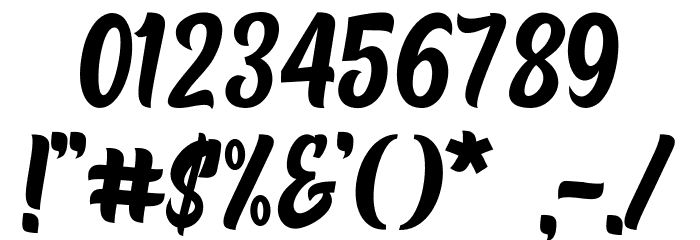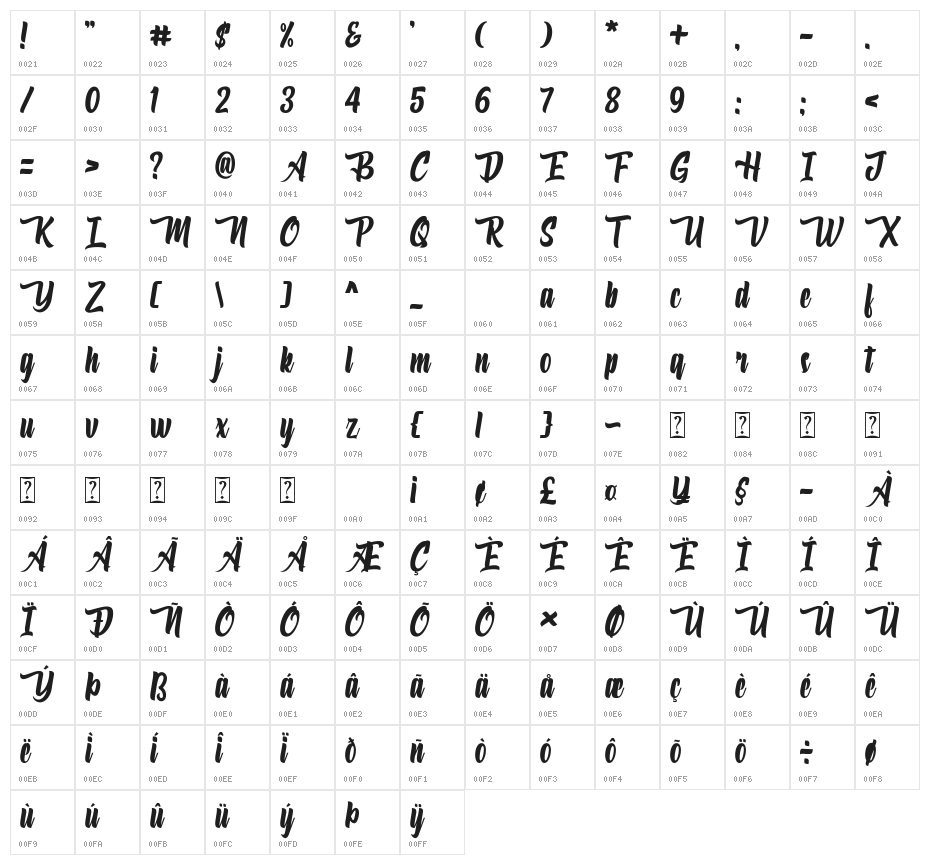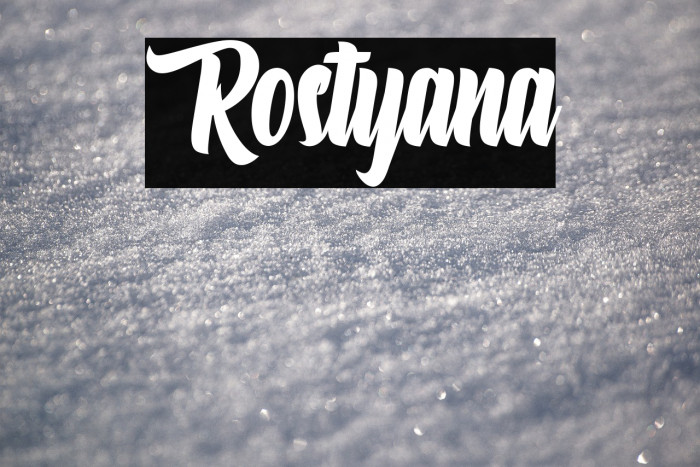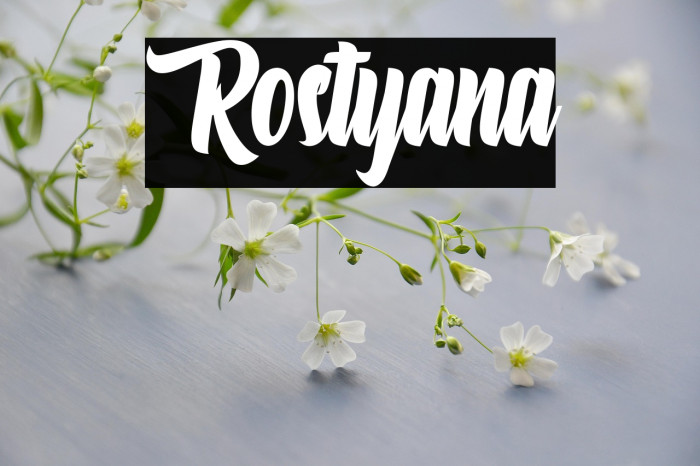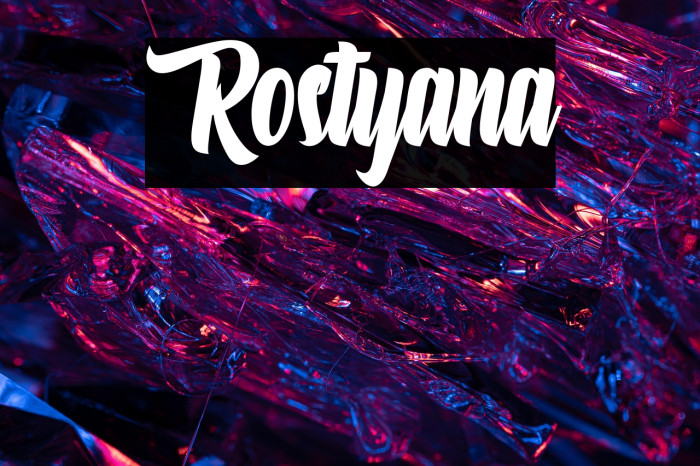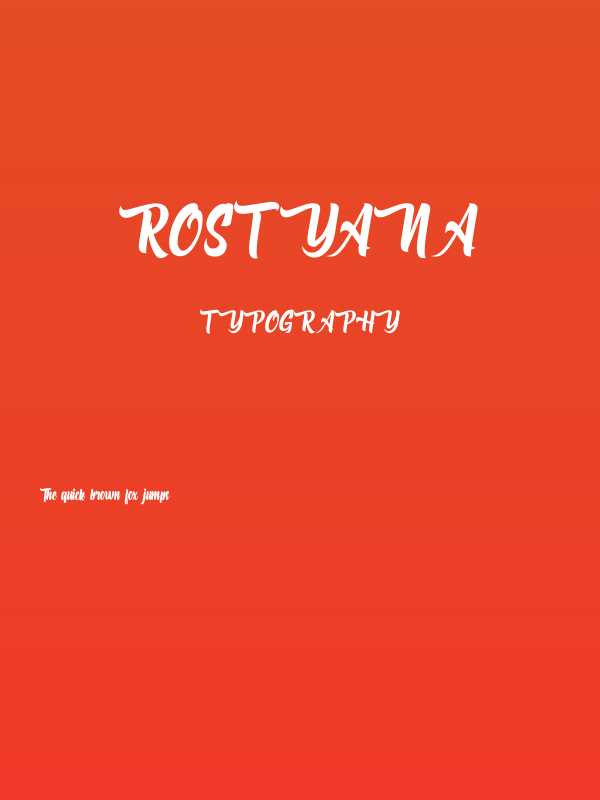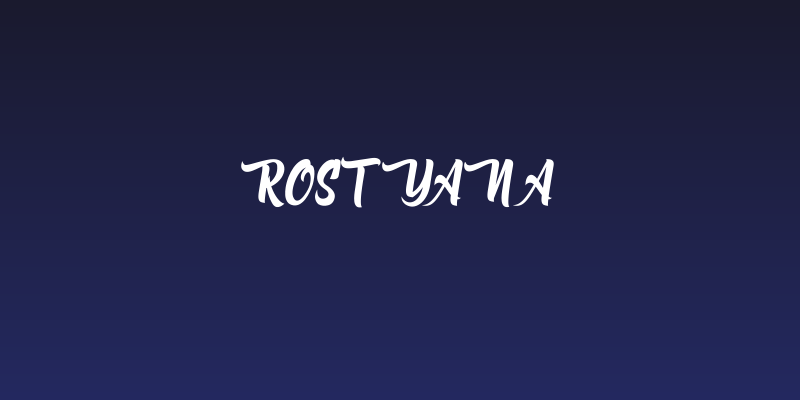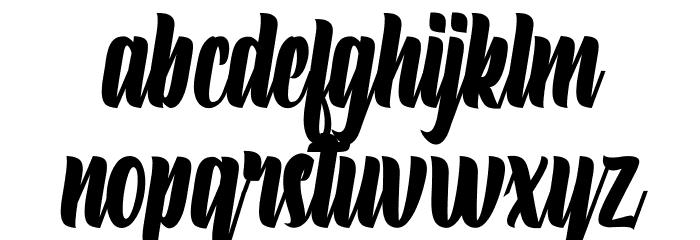
Rostyana Font
Rostyana Description
This font features a bold, cursive style with a dynamic and energetic flow. The uppercase letters exhibit a playful yet elegant flair, with strokes that vary in thickness, adding a sense of movement and rhythm. The lowercase letters maintain this lively character, with smooth, rounded forms that enhance readability while retaining a stylish appearance. The numerals are consistent with the overall design, offering a cohesive look across all characters. Special characters are well-integrated, maintaining the font's distinctive personality. The font's boldness and unique style make it suitable for eye-catching designs.
| Proposed Projects | Ideal for branding, posters, invitations, and any project requiring a bold, expressive touch. |